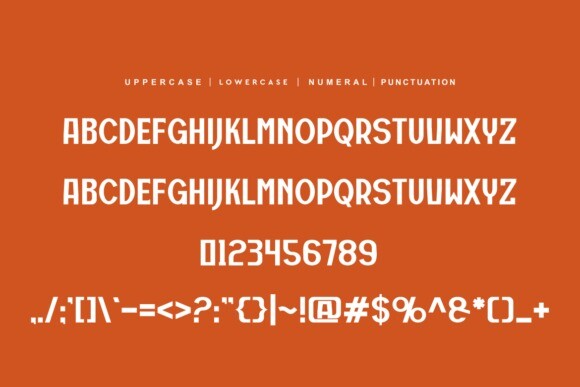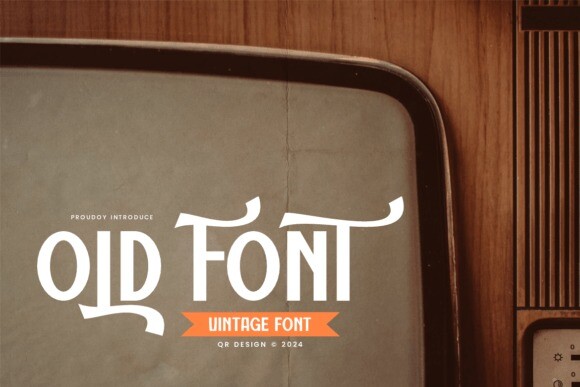
Retrolef Vintage Font
Designer: qrdesignstd
Retrolef Vintage Font is a vintage-style font with an old-fashioned look. It has a classic feel, perfect for designs that want to bring back the charm of the past. The letters are bold and stylish, making them great for posters, logos, or anything that needs a retro touch.